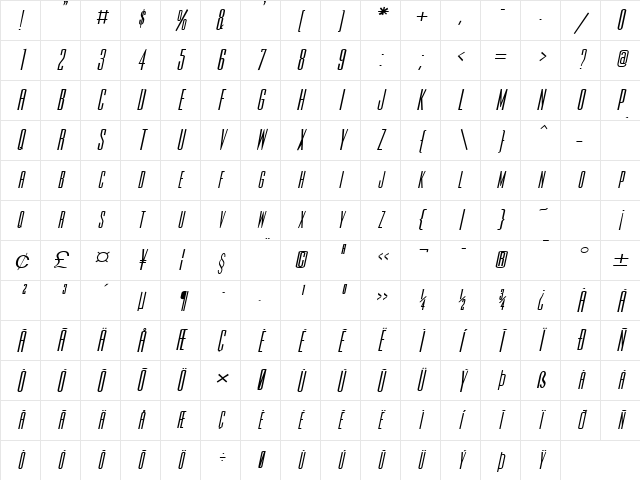
Slim Jim-Extended Bold Italic Free Font
Slim Jim-Extended Bold Italic
Design Context for Slim Jim-Extended
Slim Jim-Extended is a composed and adaptable typeface that performs quietly and consistently across a wide range of design contexts. The slanted form adds forward momentum and visual energy. Its bold stroke weight gives it real presence on the page.
Pro Tip: Use Slim Jim-Extended for emphasis, pull quotes, and subheadings where its slanted energy can add rhythm to the layout.